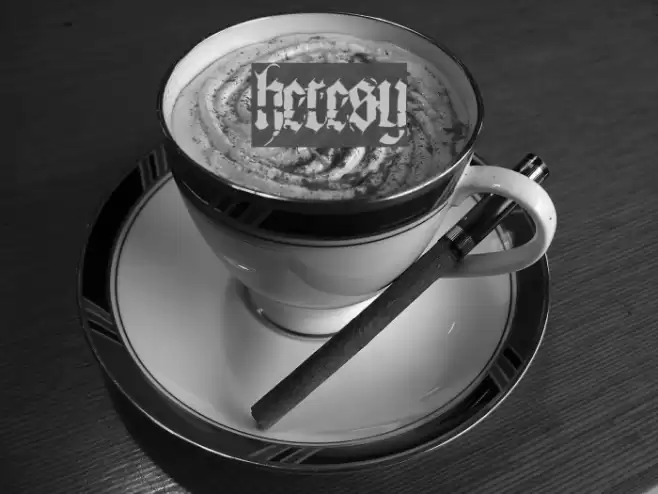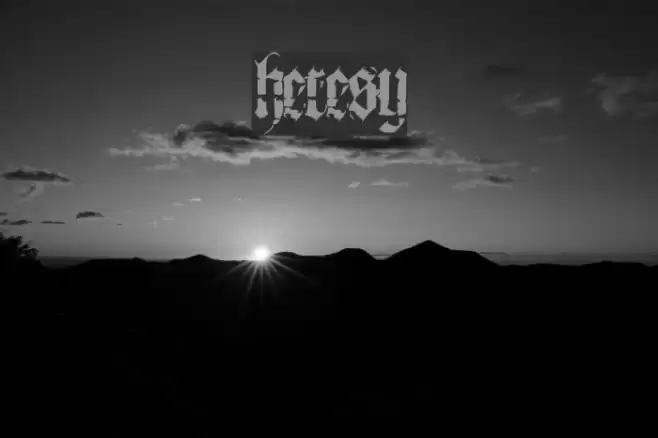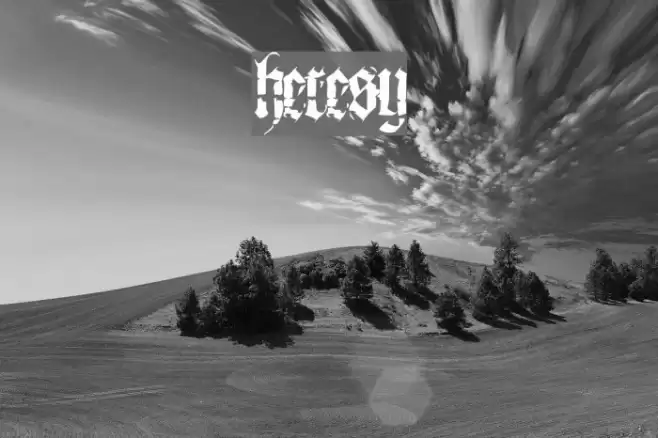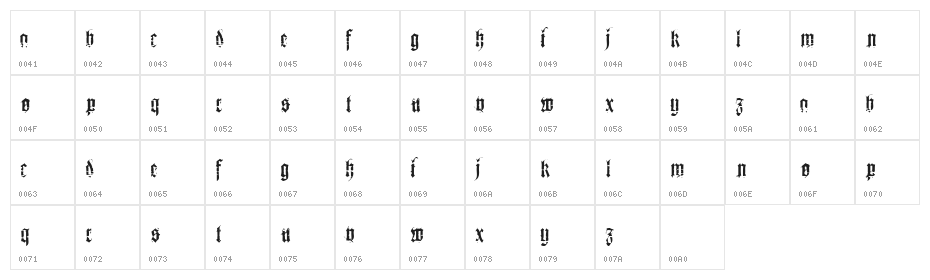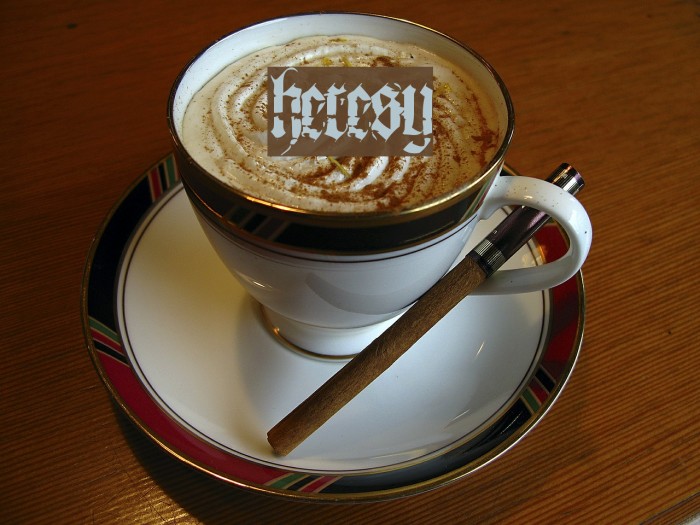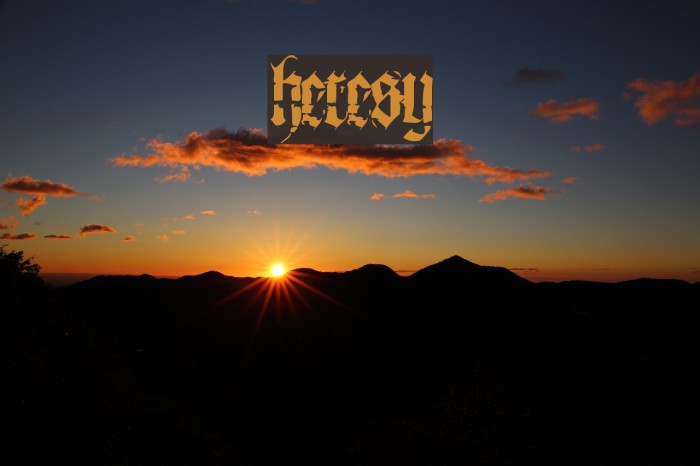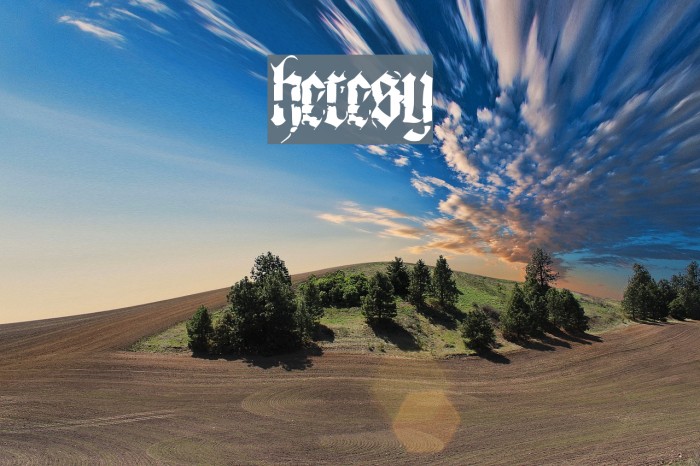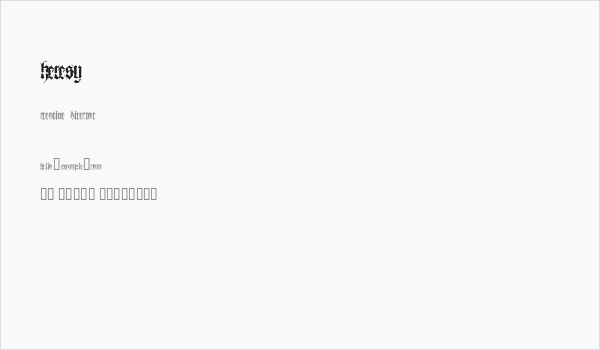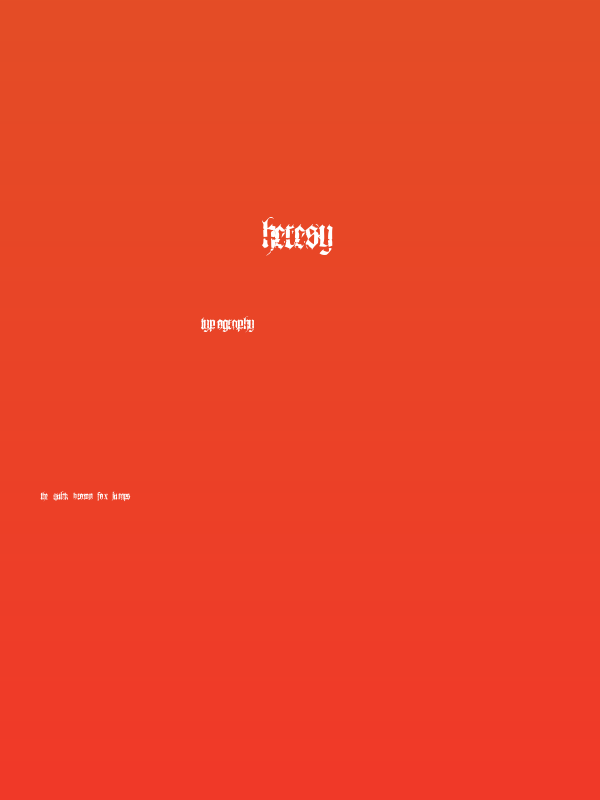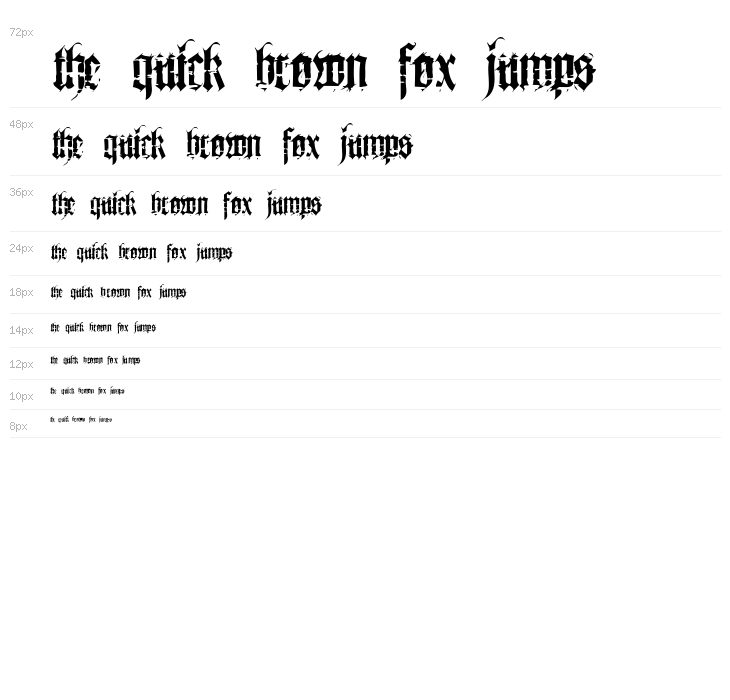
heresy Font
heresy Description
This font embodies a classic Blackletter style, characterized by its intricate and ornate design. The letters are sharply defined with pointed edges and elaborate flourishes, reminiscent of medieval manuscripts. The uppercase and lowercase letters maintain a consistent style, with a strong emphasis on vertical strokes and angular forms. The overall appearance is bold and dramatic, making it ideal for creating a sense of historical or gothic ambiance. The font's decorative nature is evident in its detailed serifs and the unique way each letter connects, creating a cohesive and visually striking text.
A dramatic Blackletter font with intricate, pointed details and a gothic style from Gothic fonts.
- Proposed Projects: Ideal for historical documents, gothic-themed designs, book covers, and event invitations.
- Character Spacing: Tight
- Overall Style: Vintage
- Use Case: Logos, Headlines, Decorative text